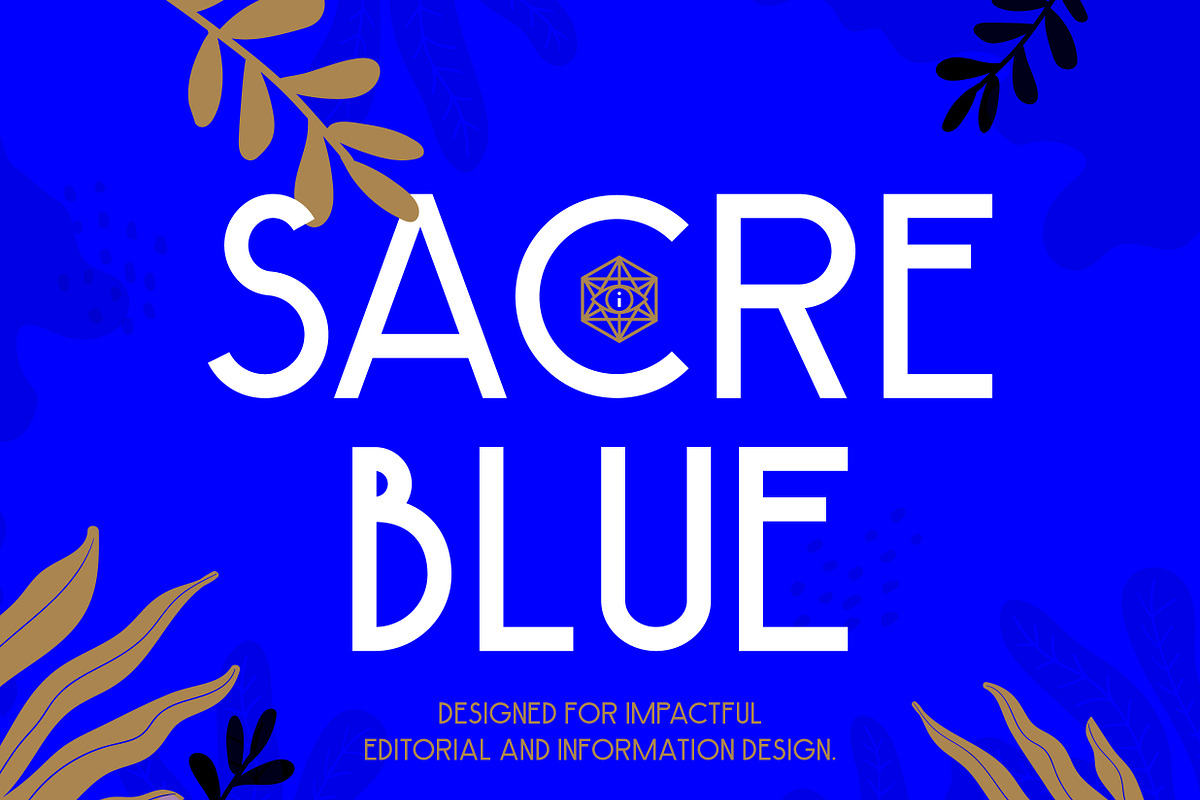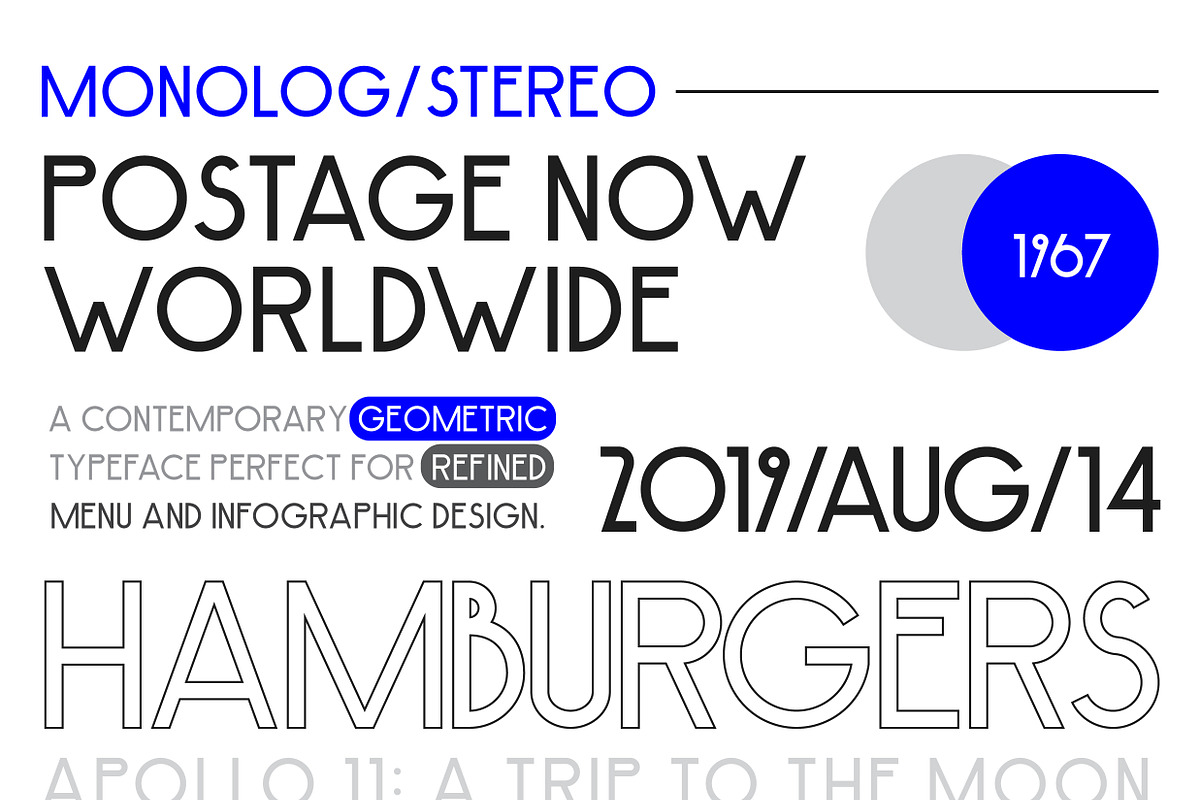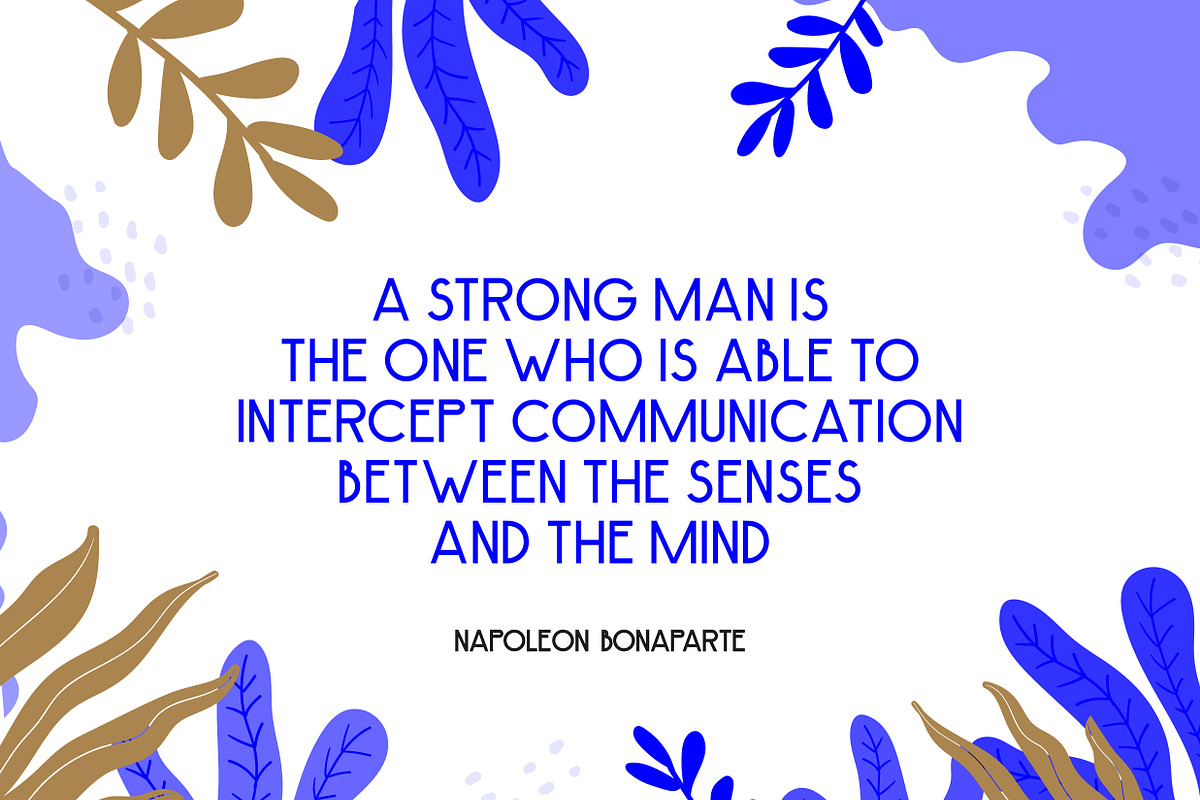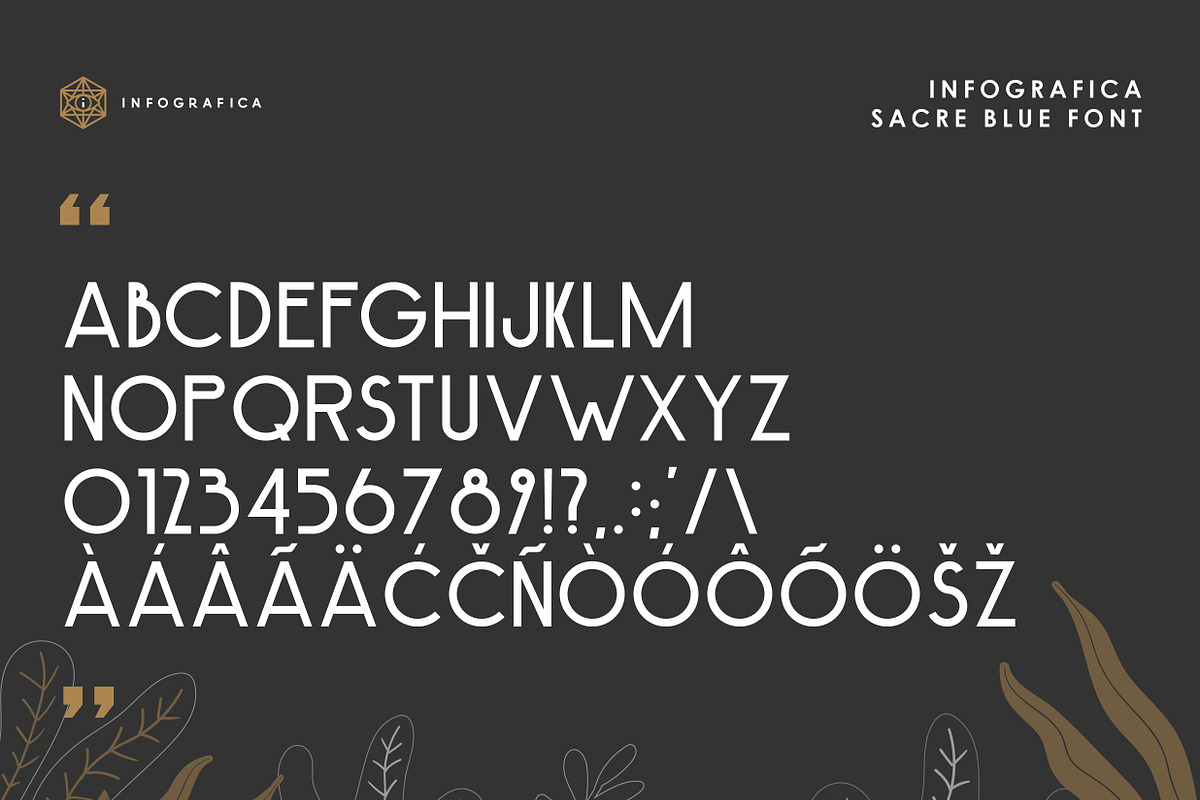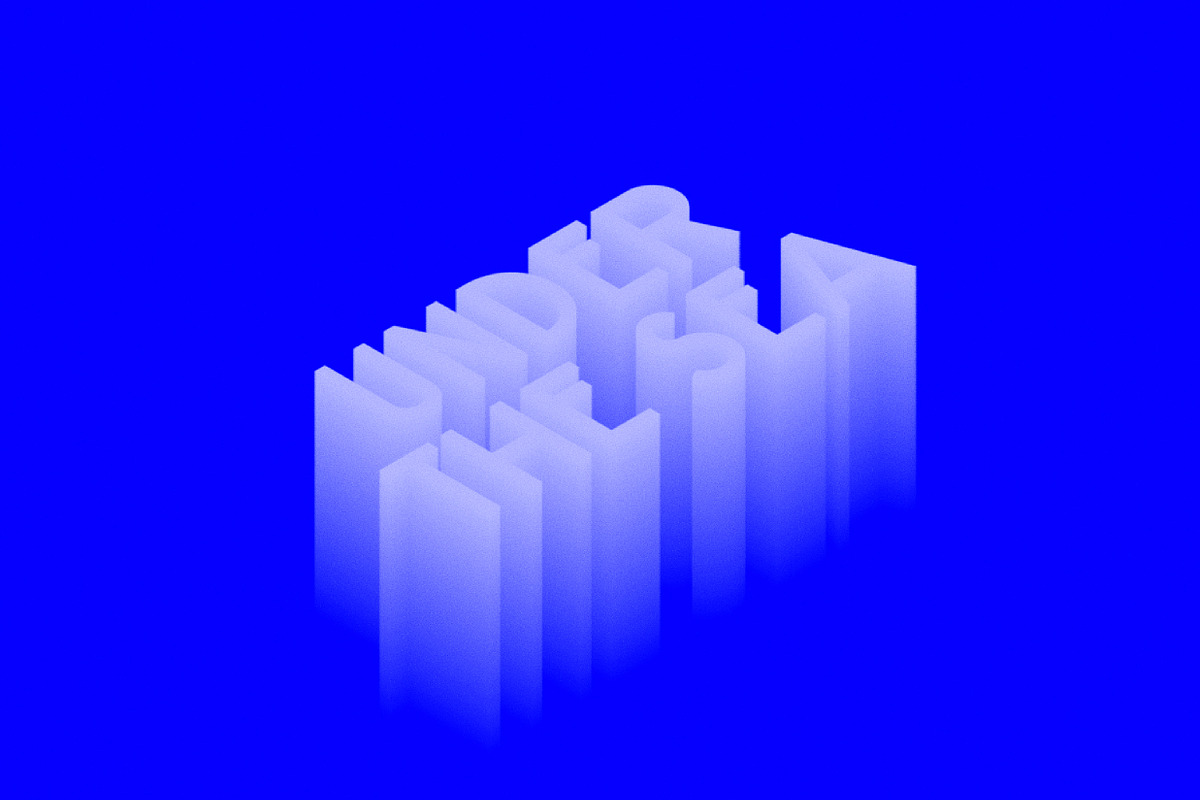
Sacre Blue - Elegant Geometric Font
Born out of a competition on the noted branding blog, Brand New, Sacre Blue is a contemporary geometric typeface. Perfect for refined lifestyle, editorial, branding or infographic design, Sacre Blue is perfect for those designers looking for a special typeface to set their work apart!
The Sacre Blue Font in upper case (SacreBlue.ttf and SacreBlue.otf) - featuring various numbers, symbols and foreign language characters for languages like Croatian, Swedish and Turkish. Give the font a test drive below and let us know what you think!